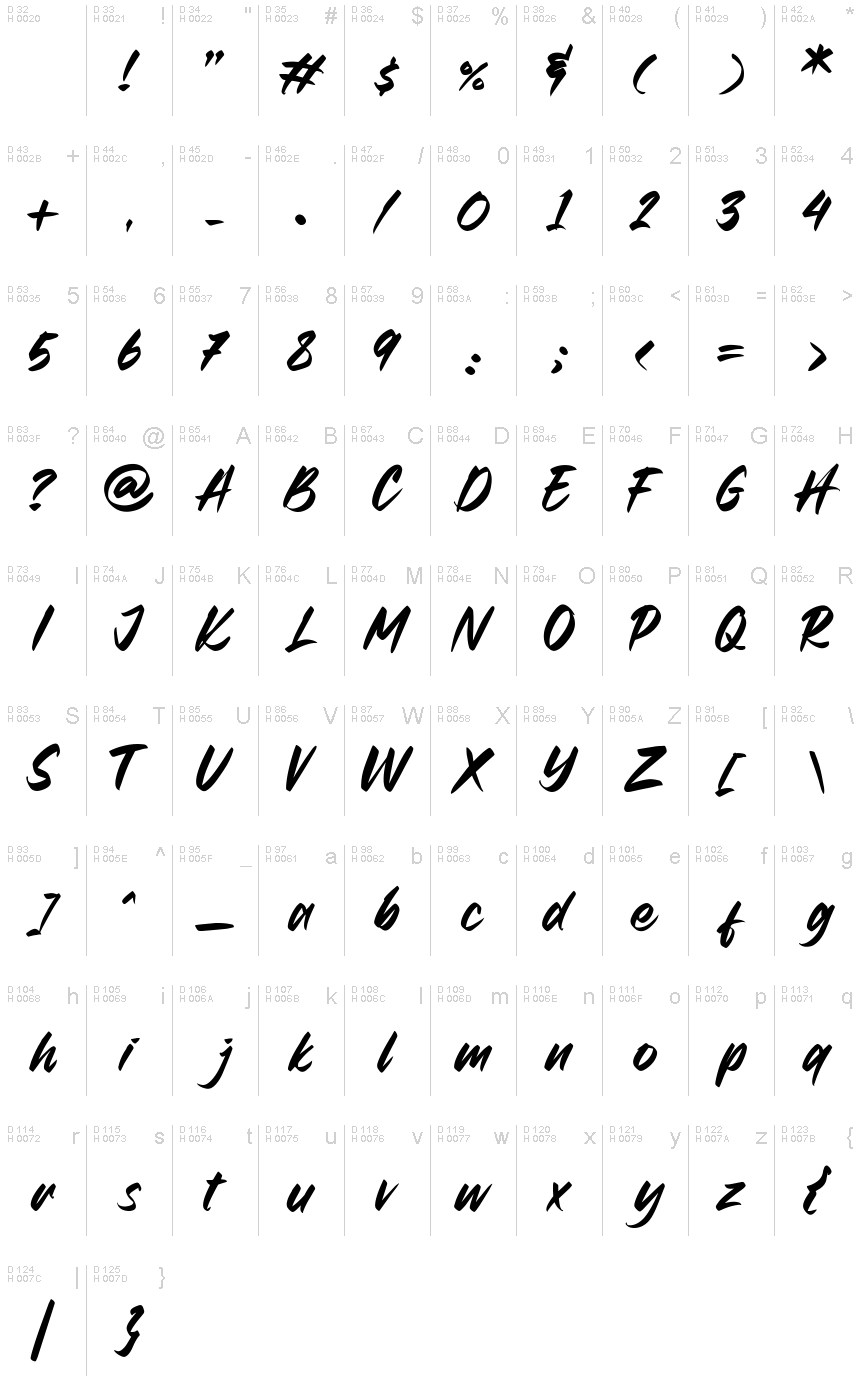
Spotlight
Spotlight, a captivating handwritten font crafted by Excellent Ritma Florendia, commands attention with its bold, condensed strokes and fluid, expressive style. Evoking a sense of dynamic energy, this versatile typeface seamlessly blends modern elegance with a touch of vintage charm. Its distinctive character and impactful visual presence make it an ideal choice for elevating big displays, eye-catching taglines, and attention-grabbing designs.
This font's versatility shines through its suitability for a wide range of applications. From logos and company slogans to social media posts and digital/print advertisements, Spotlight's strong personality and legibility ensure it stands out, leaving a lasting impression on audiences. Brands seeking to make a bold statement or create a sense of dynamism and excitement will find Spotlight to be a captivating and highly effective typographic solution.